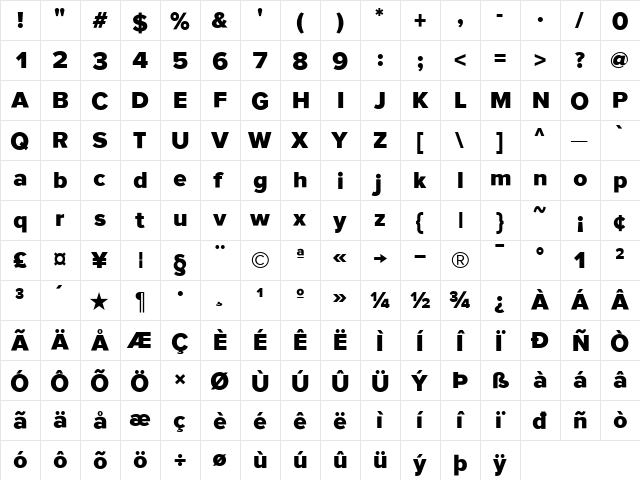
ProximaSansBlack Regular
Design Context for ProximaSansBlack Typeface
ProximaSansBlack takes a measured approach to typography — its balanced proportions and neutral character make it a reliable workhorse for both digital and print work.
Pro Tip: Use ProximaSansBlack in both headline and body roles to test its range before committing to a single application.